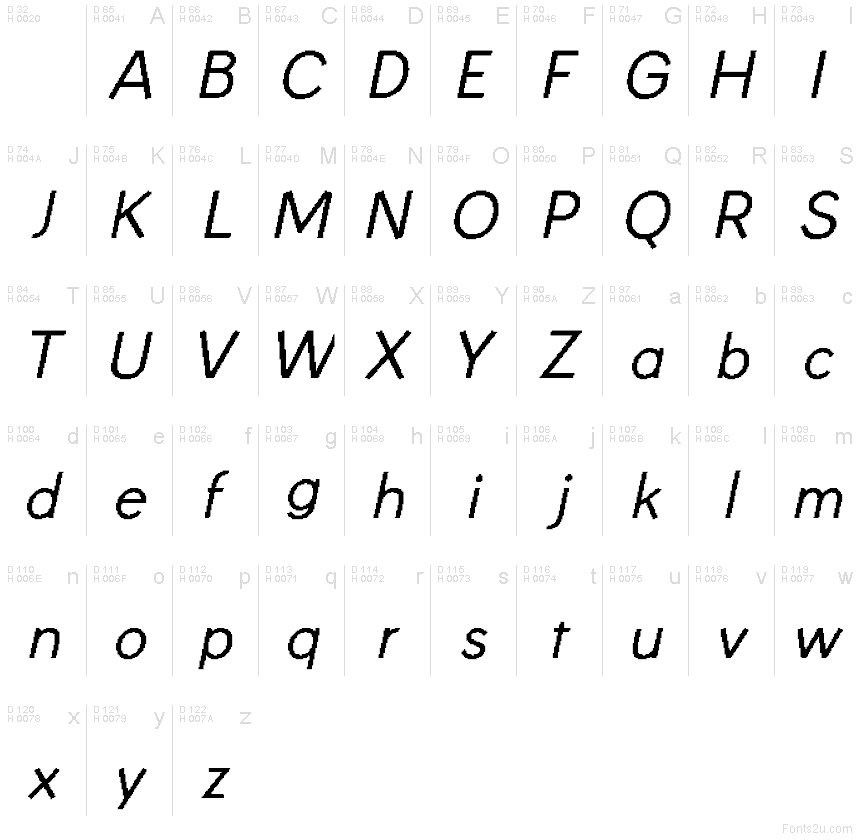
VarenaPixel-Regular Demo
Varena Pixel font by Craft Supply Co. is a free slanted pixel font that stands out with a lively, script-like tilt rendered in crisp, stepped blocks. Built within the Varena family, its diagonal rhythm and soft, stair-stepped curves give it a surprising warmth—more wink than glitch—while staying sharply grid-true for clean alignment on screens.
Using Varena Pixel, headlines snap with retro energy without feeling boxy. It shines on indie game titles, stream overlays, retro tech posters, event flyers, stickers, and merch. This free font loves generous sizes; keep it 24px and up for the clearest texture. Pair with a simple geometric sans for body copy to let Varena Pixel carry the voice.